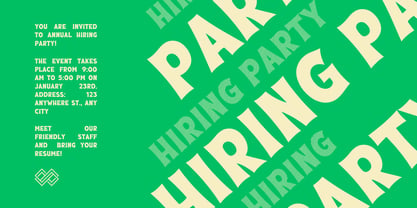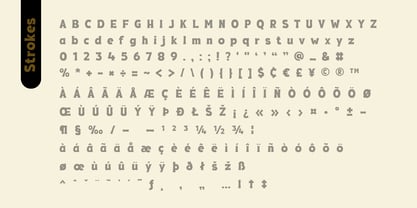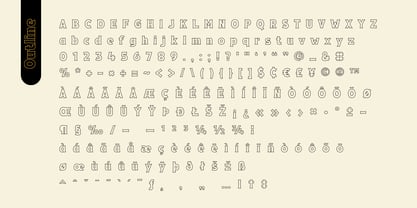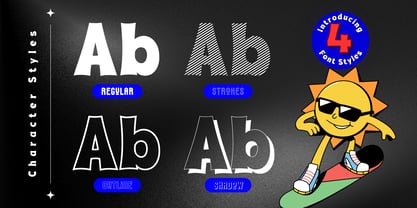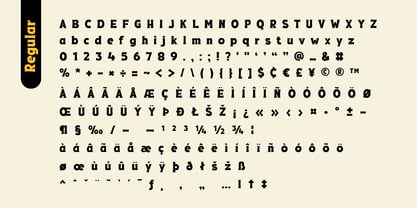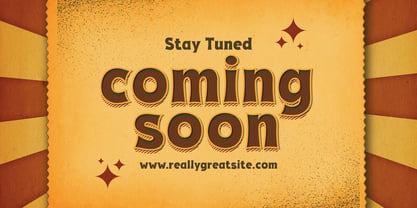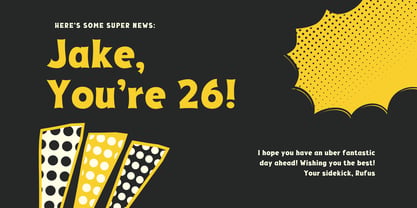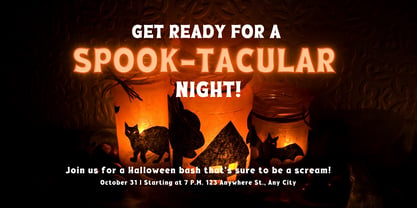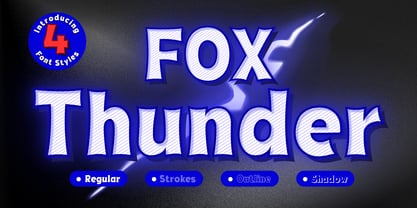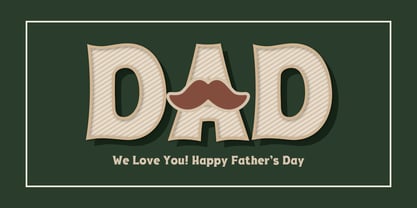
Fox Thunder
The Fox Thunder Font Family was designed by Rattana Rattanawan and published by Fox7. Fox Thunder contains 4 styles and family package options.
Fox Thunder is a bold, playful, and energetic display font family designed to bring power and fun into your creative projects. This font comes with 4 unique styles that you can mix and match to create eye-catching designs. Perfect for posters, headlines, logos, gaming, kids’ designs, cartoon titles, and anything that needs a strong and electrifying touch.
Each style adds its own character and flexibility, making Fox Thunder a versatile font family for both digital and print projects.
Perfect For
𖧷 Posters & Flyers
𖧷 Children’s Books
𖧷 Comics & Cartoons
𖧷 YouTube Thumbnails
𖧷 Branding & Logos
𖧷 Stickers & Merch
𖧷 Social Media Graphics
👉 With Fox Thunder, your designs will stand out with a bold, comic-inspired style that’s both fun and powerful. Whether you want a clean bold look or an electrifying textured design, this font family gives you the flexibility to make it happen!